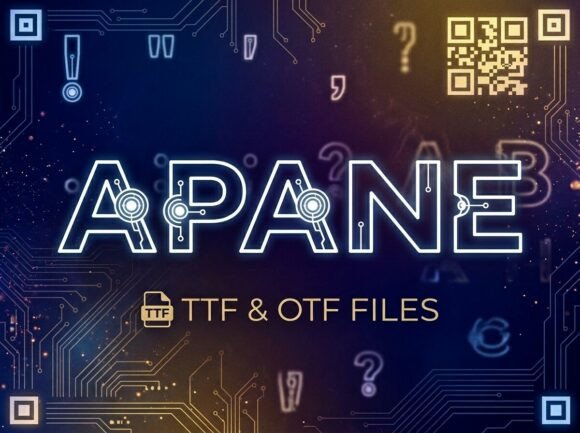
Unlocking the Future of Design: A Deep Dive into Apane Font
I’ll never forget the late nights spent scrolling through font libraries, searching for the perfect typeface for a client’s e-sports branding project. The brief was simple: bold, futuristic, and attention-grabbing. But, as any designer knows, finding that perfect font can be like looking for a needle in a haystack. That was until I stumbled upon Apane Font, a game-changing display typeface that embodies the “cybernetic-and-futuristic” soul I was looking for.
The Design Moment: Where Apane Shines
Apane Font is more than just a collection of letters; it’s an experience. Its bold, geometric letterforms are intricately designed with rhythmic circuit-board paths, nodes, and neon-inspired inline detailing. The result is a font that’s both futuristic and mesmerizing. Whether you’re working on independent e-sports branding, software developer portfolios, sci-fi gaming interfaces, or high-impact social media headers, Apane is the premier choice.
So, what makes Apane Font stand out from the rest? Here are a few things I love:
• ✨ Unique and bold design: Apane’s geometric letterforms are unlike anything you’ve seen before.
• ✅ High-tech aesthetic: The font’s circuit-board paths and neon-inspired detailing give it a truly futuristic feel.
• 💻 Cyberpunk and digital vibe: Apane is perfect for projects that require a bold, high-tech look.
And, like any font, it’s not without its quirks:
• 🤔 Limited use cases: Apane is a display font, so it’s best used for headlines and titles rather than body text.
• ⚠️ Legibility at small sizes: While Apane is stunning at large sizes, it can be difficult to read at smaller sizes.
Exploring Alternatives: Similar Fonts to Apane
While Apane is a unique font, there are other similar fonts that might suit your design needs. Here are a few alternatives:
• Montserrat: A geometric sans-serif font with a modern and urban feel.
• Raleway: A elegant sans-serif font with a futuristic and high-tech aesthetic.
• Nexa: A bold and futuristic font with a strong, geometric design.
• Orbitron: A sci-fi inspired font with a bold and technological feel.
The Designer Inspiration: A Backstory
Apane Font was inspired by the futuristic world of cyberpunk and digital design. The font’s creator envisioned a typeface that would capture the essence of a high-tech, futuristic world. With its bold, geometric letterforms and neon-inspired detailing, Apane is the perfect embodiment of that vision.
What is Apane Font best used for? Apane Font is best used for display purposes, such as headlines, titles, and short text passages.